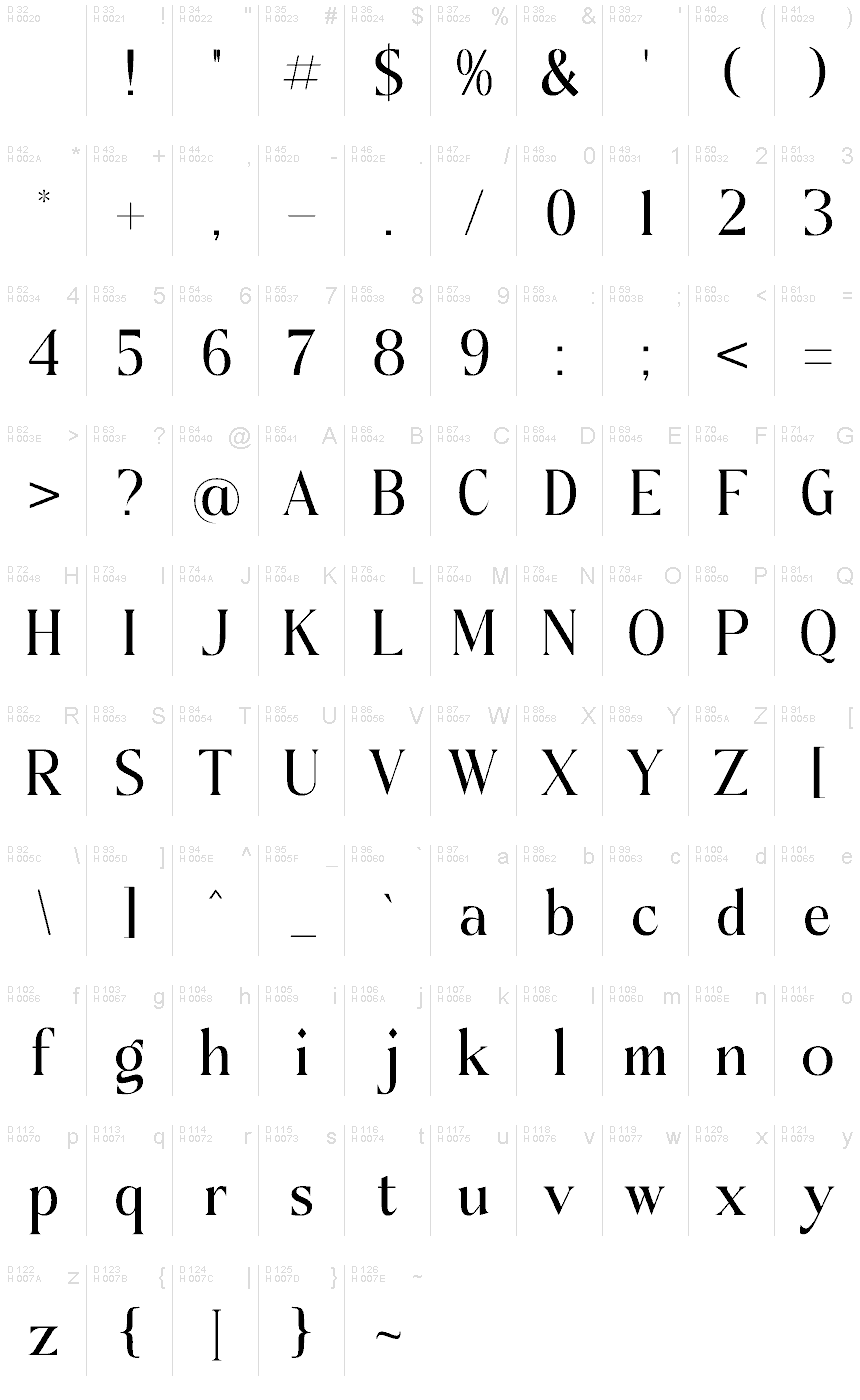
Doknatle
Doknatle font by Storytype Studio is a free serif font with an elegant, classic design highlighted with thin hairlines and sharp clean edges. Each character carries a delicate touch that adds to an overall refined look where sophistication speaks for itself. The traditional style is well exerted in the impressive legibility which accompanies capital letters as much as it does lowercase ones.
Use Doknatle in various print editorial uses such as book covers, magazines, and newspapers. Non-editorial print design projects include invitations, greeting cards, and product packaging. In digital design tasks, the font can be used in mobile applications, websites & blogs design or even branding purposes like logos.